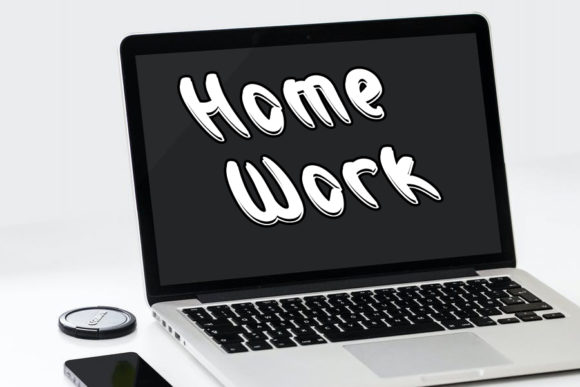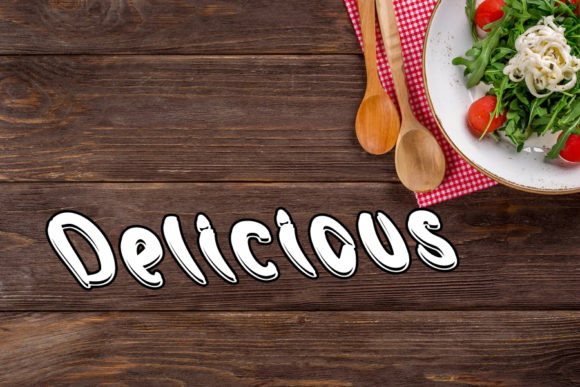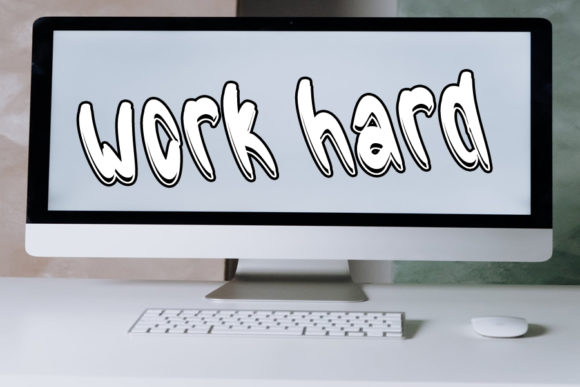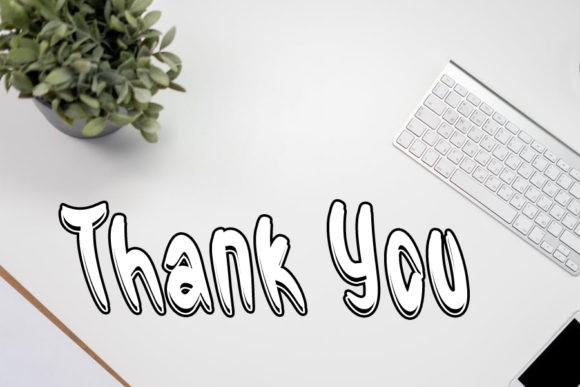
Gutawa Font: The Ultimate Guide to this Cool, Bold, and Trendy Display Font
Are you a designer or crafter looking for a font that can add a touch of uniqueness to your designs? Look no further than the Gutawa font! This cool, bold, and trendy display font is perfect for creating stunning posters, flyers, and prints that will grab attention and leave a lasting impression. In this article, we’ll dive into the world of Gutawa font, exploring its features, benefits, and endless possibilities.
What is Gutawa Font?
Gutawa font is a modern, sans-serif display font that exudes confidence and style. Its bold and chunky design makes it perfect for headlines, titles, and short phrases. The font is designed to be versatile, making it suitable for a wide range of design projects, from posters and flyers to logos and branding materials.
Key Features of Gutawa Font
So, what makes Gutawa font so special? Here are some of its key features:
- Bold and Chunky Design: Gutawa font is designed to make a statement. Its bold and chunky design makes it perfect for creating eye-catching headlines and titles.
- Modern and Fresh: The font has a modern and fresh feel to it, making it perfect for designs that require a contemporary look and feel.
- Highly Legible: Despite its bold design, Gutawa font is highly legible, making it easy to read even at smaller sizes.
- Versatile: The font is designed to be versatile, making it suitable for a wide range of design projects.
Benefits of Using Gutawa Font
So, why should you use Gutawa font in your designs? Here are some benefits:
- Adds Visual Impact: The bold and chunky design of Gutawa font adds visual impact to your designs, making them stand out from the crowd.
- Enhances Readability: The font’s high legibility makes it easy for readers to quickly scan and understand your content.
- Perfect for Display Text: Gutawa font is designed specifically for display text, making it perfect for headlines, titles, and short phrases.
- Customizable: The font can be customized to fit your design needs, making it easy to match your brand’s style and aesthetic.
Endless Possibilities with Gutawa Font
So, what can you create with Gutawa font? The possibilities are endless!
- Posters and Flyers: Use Gutawa font to create stunning posters and flyers that grab attention and leave a lasting impression.
- Logos and Branding: The font’s bold and chunky design makes it perfect for logos and branding materials that require a strong visual presence.
- Print Materials: Use Gutawa font to create a wide range of print materials, from business cards to brochures and more.
- Digital Designs: The font can also be used in digital designs, such as social media graphics, website headers, and more.
Tips for Using Gutawa Font
Here are some tips for using Gutawa font in your designs:
- Use it Sparingly: Gutawa font is designed for display text, so use it sparingly to avoid overwhelming your design.
- Pair it with Other Fonts: The font pairs well with other fonts, so experiment with different combinations to find the perfect look for your design.
- Experiment with Colors: Gutawa font looks great in a variety of colors, so experiment with different colors to find the perfect look for your design.